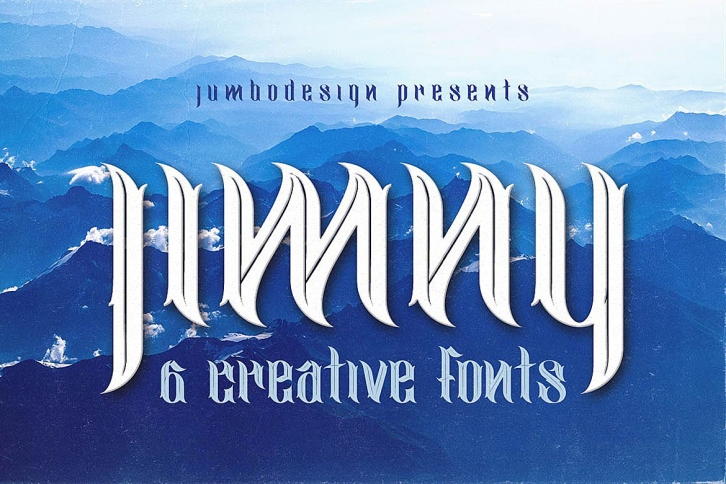
jimny is a great font that was designed by Cruzine Design. Imagine the amount of combinations you can create using this font! The archive is 21.9 MB and it was released on December 17, 2017. jimny looks beautiful on wedding invitations, greeting cards, logos, posters, labels, t-shirt designs, logos, business cards and is perfect for use in ink or watercolor works, fashion, magazines, packaging and food menus, children's books and more!